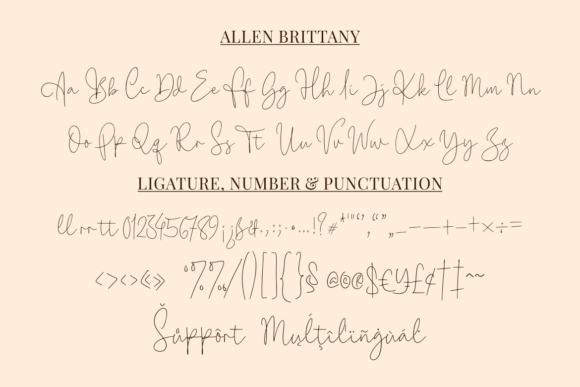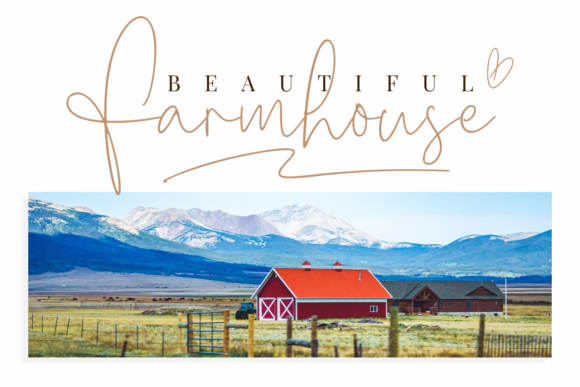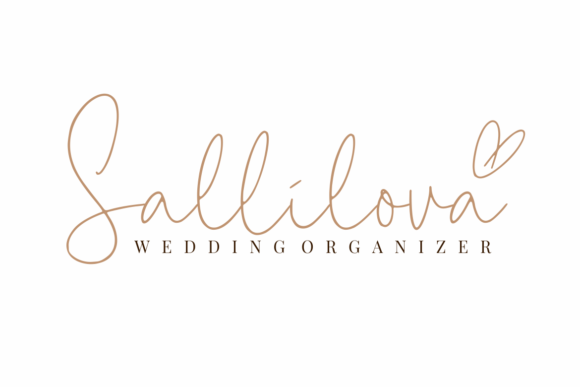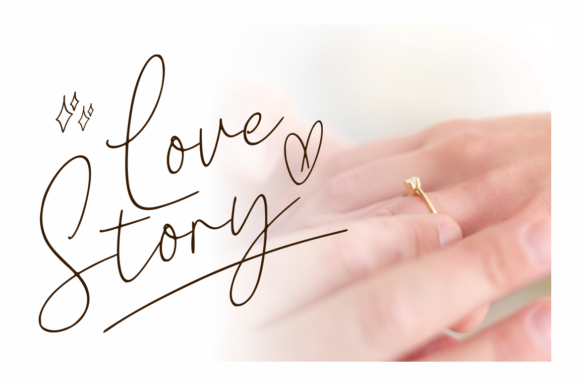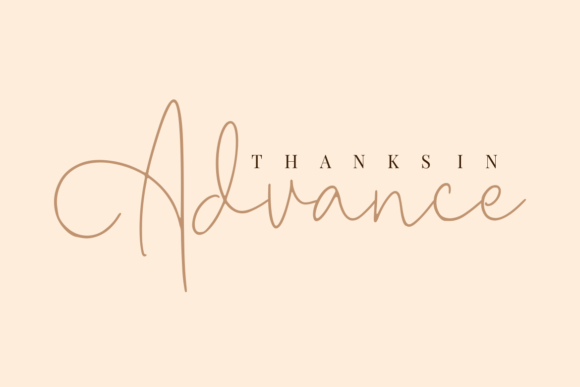
About Allen Brittany Font
Allen Brittany is a thin and gorgeous script font, defined by simplicity. Whether you’re looking for fonts for Instagram or calligraphy scripts for DIY projects, this font will turn any creative idea into a true piece of art!